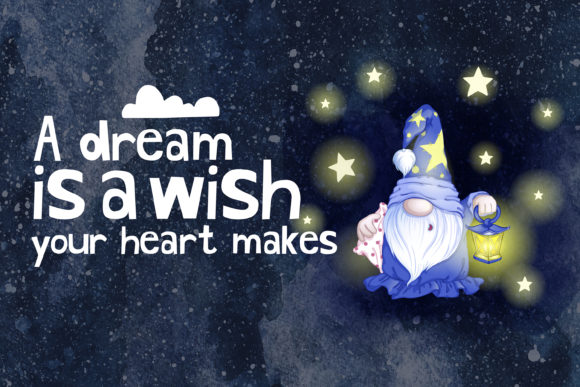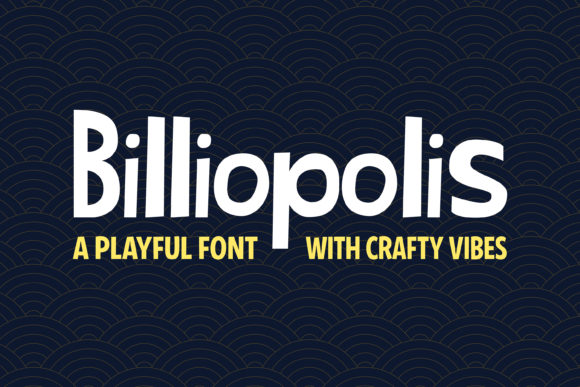
Billiopolis Font: The Friendly Display Font for Creative Projects
Are you looking for a font that can add a touch of friendliness and approachability to your creative projects? Look no further than Billiopolis, a fun and casual display font that’s perfect for headlines, blocks of text, and more. In this article, we’ll dive into the features and benefits of Billiopolis, and explore how it can elevate your designs and craft projects.
What is Billiopolis?
Billiopolis is a display font designed to make a statement. With its incredibly friendly feel, this font is ideal for creating eye-catching headlines, titles, and blocks of text that need to grab attention. Whether you’re working on a web project, print design, or motion graphics, Billiopolis is a versatile font that can adapt to any medium.
Key Features of Billiopolis
- Fun and Casual Feel: Billiopolis has a playful, approachable vibe that’s perfect for creative projects that need a friendly tone.
- Display Font: This font is designed to make a statement, with bold and confident letterforms that demand attention.
- Versatile: Billiopolis can be used for headlines, blocks of text, and more, making it a great addition to any design or craft project.
- Maximum and Minimum Variations: This font is designed to work well with both large and small text sizes, making it perfect for projects that require a range of text sizes.
Benefits of Using Billiopolis
So why choose Billiopolis for your creative projects? Here are just a few benefits of using this fantastic font:
- Adds Friendliness and Approachability: Billiopolis can help create a warm and welcoming tone in your designs, perfect for projects that need a personal touch.
- Boosts Readability: With its clear and confident letterforms, Billiopolis makes it easy to read and understand text, even at small sizes.
- Enhances Creativity: This font’s playful feel can inspire creativity and add a touch of whimsy to your designs and craft projects.
- Versatile and Adaptable: Billiopolis can be used across a range of mediums, from web and print to motion graphics and more.
How to Use Billiopolis in Your Designs
Ready to get started with Billiopolis? Here are a few tips for incorporating this font into your designs and craft projects:
- Use it for Headlines: Billiopolis is perfect for creating eye-catching headlines that grab attention and draw the reader in.
- Experiment with Text Sizes: This font works well at both large and small sizes, so don’t be afraid to experiment and find the perfect size for your project.
- Pair it with Other Fonts: Billiopolis can be paired with a range of other fonts to create a unique and interesting visual style.
- Have Fun with it!: Billiopolis is a playful font, so don’t be afraid to get creative and try new things!
In conclusion, Billiopolis is a fantastic font that’s perfect for designers and crafters looking to add a touch of friendliness and approachability to their creative projects. With its fun and casual feel, versatile design, and range of uses, Billiopolis is a great addition to any design or craft project. So why not give it a try and see the difference it can make?
Whether you’re working on a web project, print design, or motion graphics, Billiopolis is a font that’s sure to impress. Its bold and confident letterforms, combined with its playful and approachable feel, make it the perfect choice for creative projects that need to stand out from the crowd.